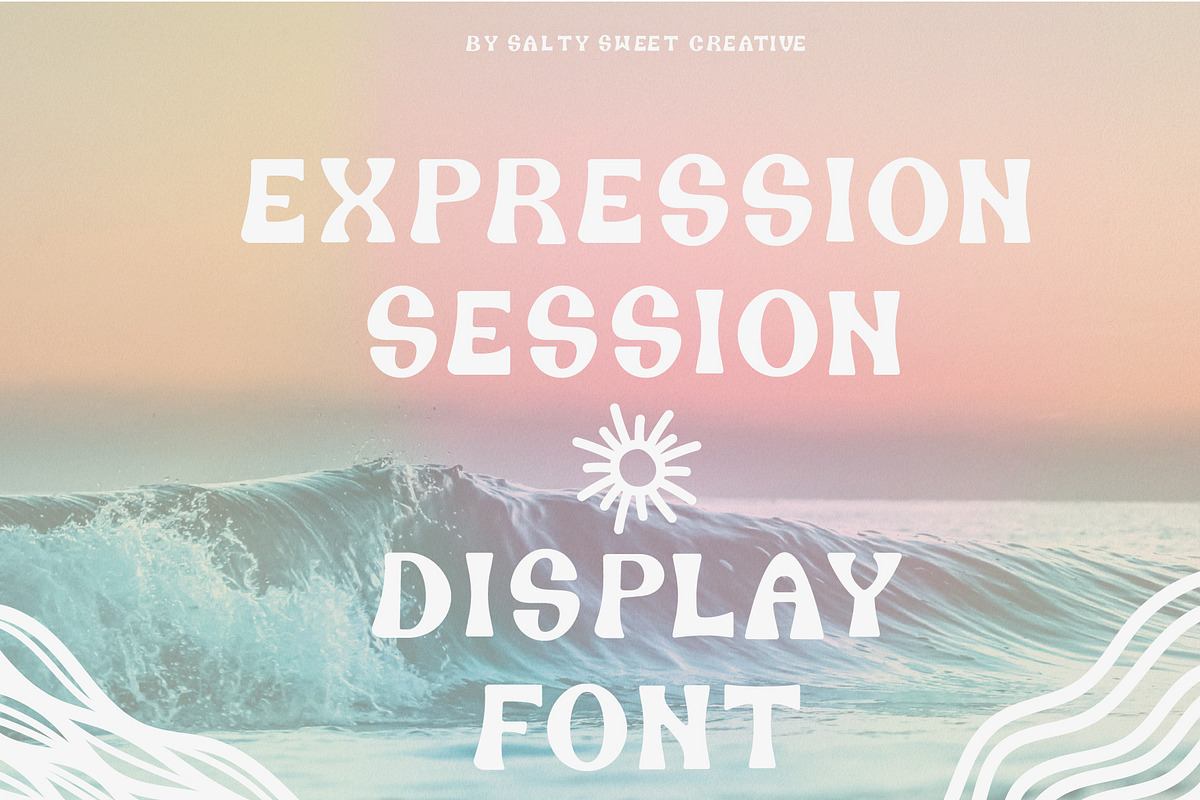
Expression Session Display Font Free Download
Expression Session Display Font Free Download is a bold and artistic typeface designed to make a statement in any creative project. With its dynamic letterforms, unique character shapes, and eye-catching appeal, Expression Session is perfect for posters, branding, event invitations, album covers, and any design that needs to stand out.
This font combines strong contrast with fluid curves, making it ideal for designs that aim to evoke energy, creativity, and boldness. Whether you’re designing a promotional campaign, a creative logo, or a trendy social media post, Expression Session adds personality and flair to your typography.